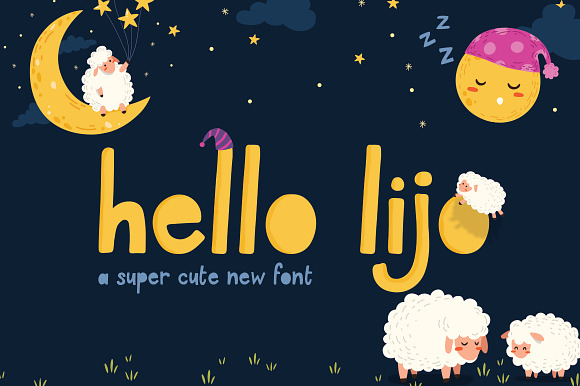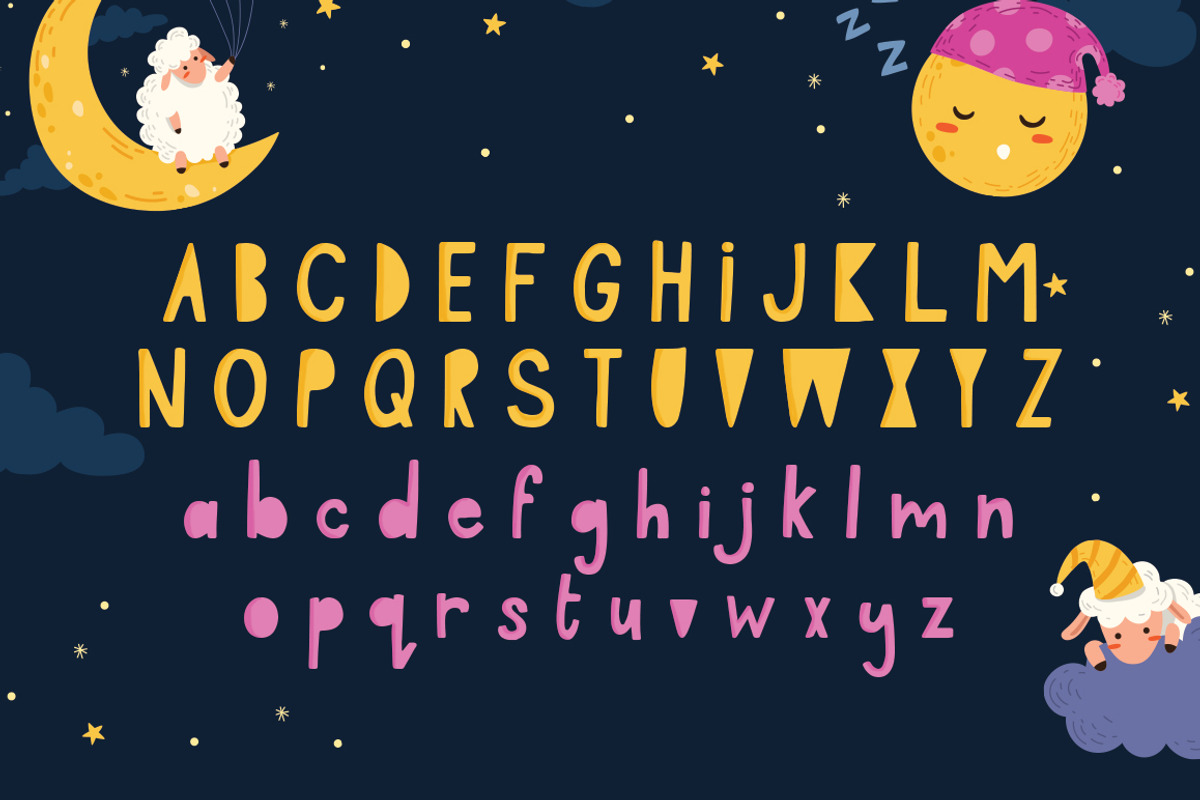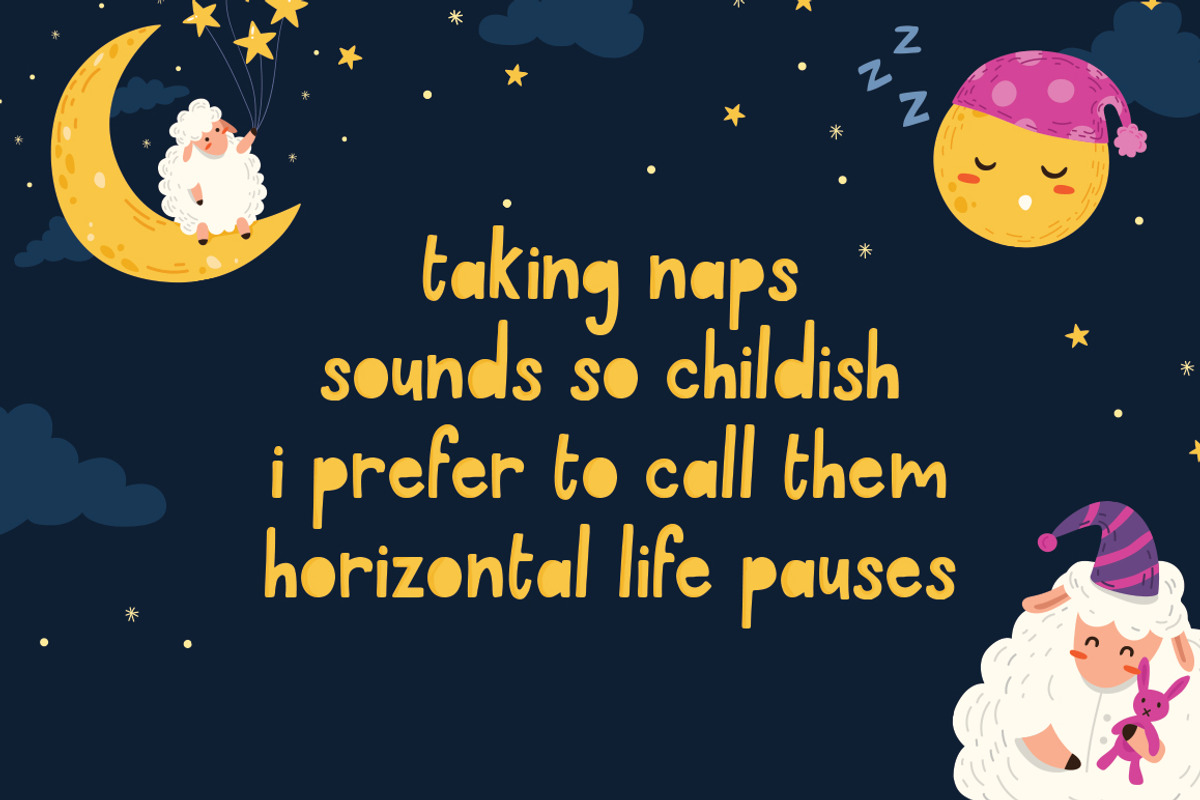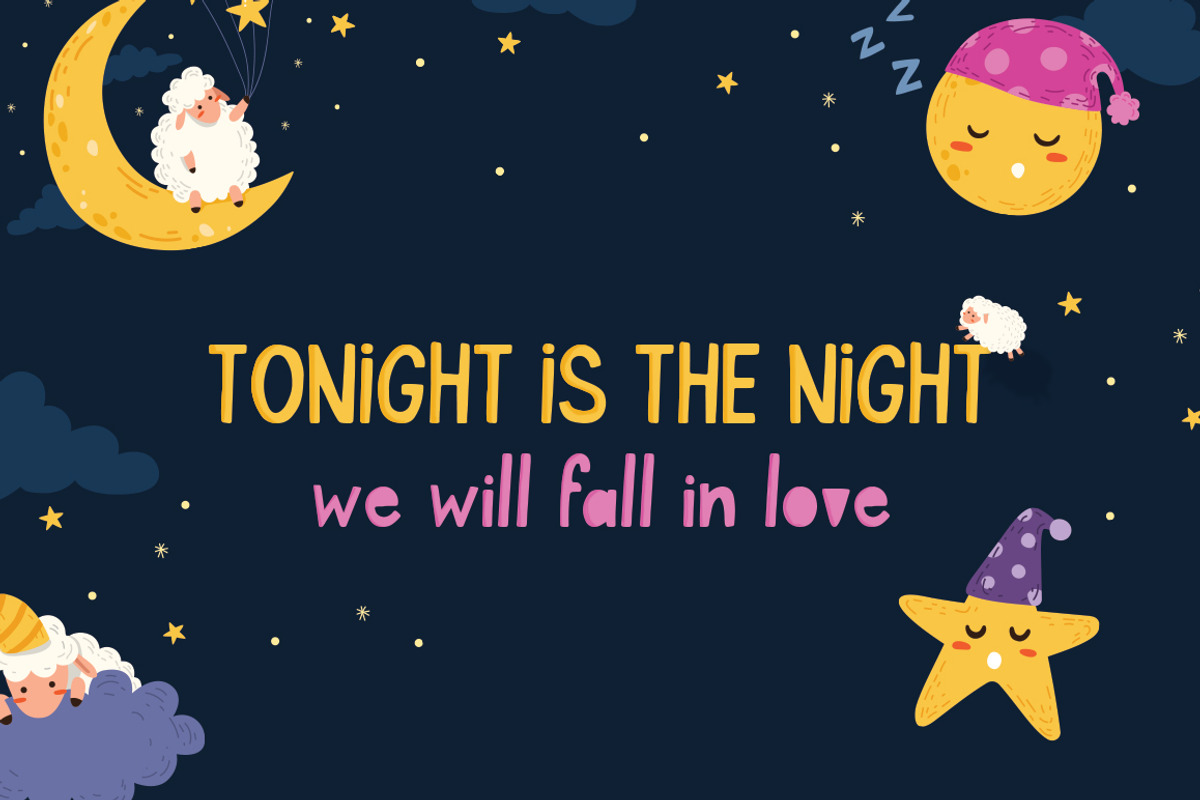
Hello Lijo Font
Hello Lijo is an adorably cute font that has a child-like whimsy about it. Completely hand written and full of unique characters, you’ll love using it for your everyday designs. Plays well with others, including scripts. Enjoy!